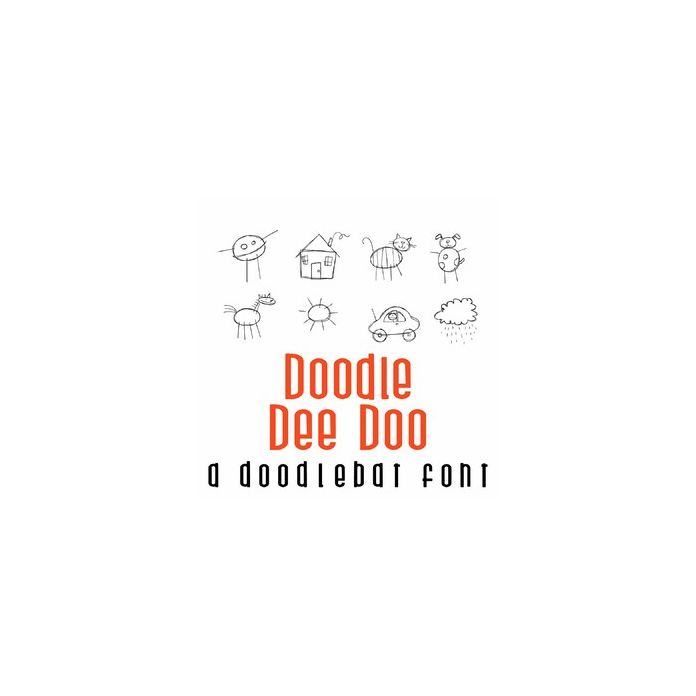
Doodle Dee Doo Doodlebat Font
This fun doodlebat font features 26 kid-style doodles. Perfect for cards, crafts, gifts, decor, scrap book pages, planner stickers and more!